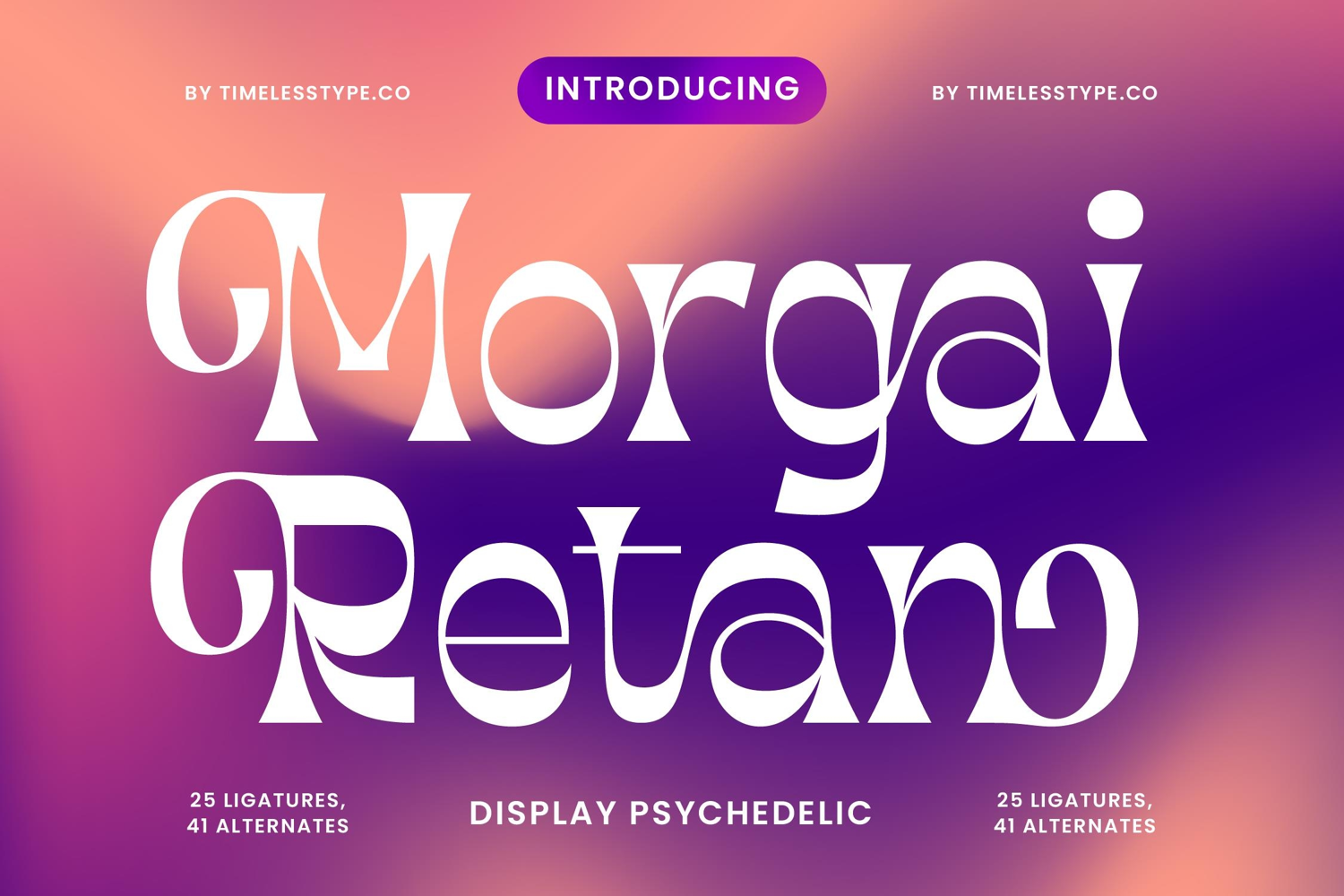
Morgai Retan - Display Psychedelic Font
Morgai Retano is a psychedelic display font that combines groovy vintage flair with modern artistic energy. With its curved strokes, experimental shapes, and fluid forms, this typeface captures the essence of retro psychedelia while keeping it fresh and stylish for contemporary projects. Designed with 25 ligatures and 41 alternates, Morgai Retano provides designers with expressive versatility, making it perfect for bold, eye-catching typography that demands attention.
This font excels in headline typography, where its unique forms and decorative alternates create instant visual impact across posters, album covers, and event banners. In branding and logo design, Morgai Retano communicates creativity and individuality, making it an excellent choice for music labels, fashion brands, lifestyle products, and creative studios aiming to stand out with a funky yet refined identity. Its groovy character also makes it ideal for packaging design, particularly for beverages, artisanal goods, and youth-oriented products, where expressive typography amplifies visual appeal.
Morgai Retano thrives in advertising campaigns, festival posters, and social media graphics, where its alternates and ligatures inject personality and flair. For editorial layouts, merchandise, and lifestyle branding, the font adds charm and originality, ensuring typography is more than just functional—it becomes art.
With multilingual support, Morgai Retano adapts effortlessly to global projects, making it suitable for both local and international audiences.
Ultimately, Morgai Retano is more than just a display font—it is a design tool for bold, artistic, and psychedelic storytelling. Whether used for headlines, branding, packaging, advertising, or music-related design, it guarantees unforgettable, stylish, and dynamic results.